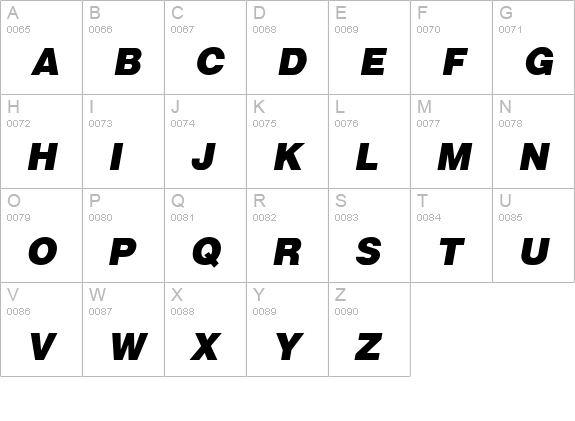
Arena Black Italic is a maximum-weight, dramatic, italic variant in the Arena typeface family \xE2\x80\x94 well suited to maximum-impact headlines, posters, and packaging.
Arena Black Italic font is a bold and stylish typeface that exudes elegance and sophistication. Its sleek and modern design is perfect for adding a touch of class to any project. The italicized characters give this font a dynamic and eye-catching look, making it ideal for headlines, logos, and branding materials. Best of all, Arena Black Italic font is available for free download at FontsMarket.com. This means you can easily access this premium font without any cost. Whether you're a designer looking to elevate your projects or a business owner wanting to stand out from the competition, Arena Black Italic font is a fantastic choice that won't break the bank. Download it now and add a touch of luxury to your designs!